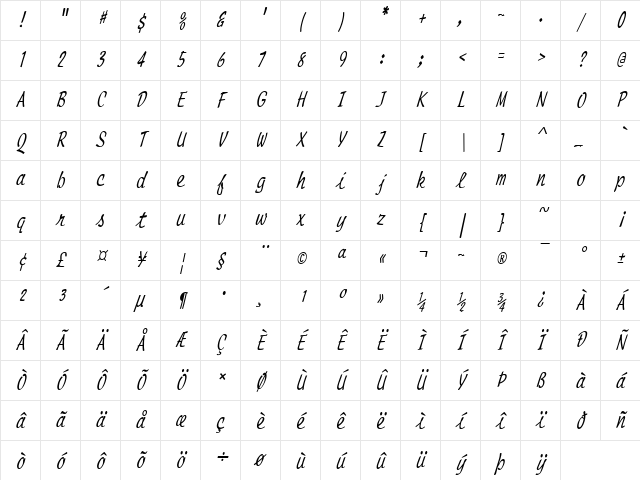
Manuscript Thin Italic
Manuscript Thin Family
Design Context for Manuscript Thin
Manuscript Thin flows with the natural rhythm of handwritten lettering, making it ideal for designs that call for warmth and personal expression. Its slender proportions lend an understated elegance to any composition.
Font Pairing: Combine Manuscript Thin with a simple geometric sans for maximum contrast - the tension between flowing curves and clean structure is a classic typographic pairing.
Pro Tip: Use Manuscript Thin for short runs of text - names, titles, or taglines. Extended body copy in script faces tires the eye quickly.